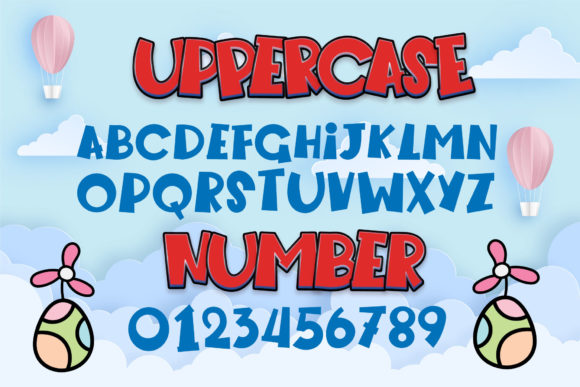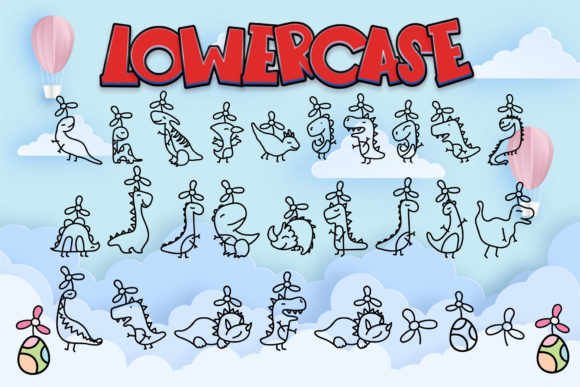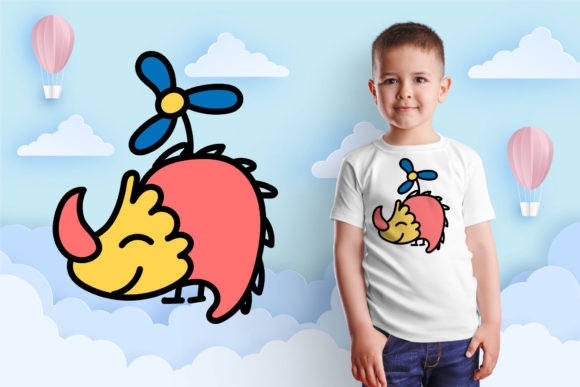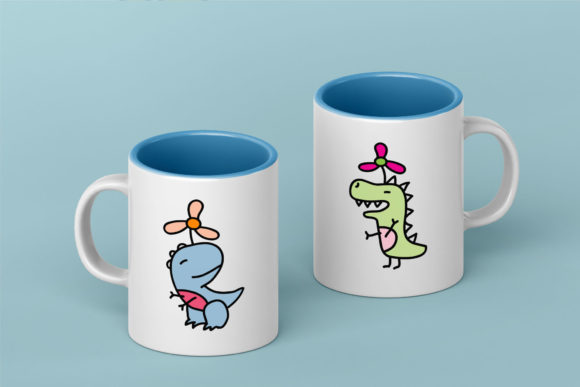
Meet Your New BFF: Dinofly Font
Have you ever been brainstorming a new project, flipping through fonts, and suddenly, a spark of creativity hits you? It’s like your design heart skipped a beat, and you can’t wait to bring your idea to life. This is exactly what happened when designers discovered the adorable Dinofly Font, a playful duo font that combines display and dingbats.
Dinofly Font is more than just a cute addition to your design arsenal – it’s a perfect blend of friendly and informal characters that will make your designs stand out. With its cute little dinosaurs for accents, this font is a must-have for designers looking to add a whimsical touch to their projects. Whether you’re working on a children’s book, a fun website, or a social media campaign, Dinofly Font is sure to bring a smile to your audience’s faces.
Dinofly Font Key Features
- Resolution: DINOFly Font is designed to be scalable and legible at high resolutions, making it suitable for use on screens and in print.
- Unique Characteristics: DINOFly Font features a unique blend of modern and futuristic elements, with a distinctive ‘fly’ design element that adds a touch of whimsy and personality.
- Character Set: DINOFly Font includes a comprehensive character set, including Latin, Cyrillic, and Greek alphabets, as well as a range of punctuation and symbol characters.
Dinofly Font Review
As a designer, I’ve had the chance to work with Dinofly Font, and I’m here to give you my honest review. Overall, I’d say it’s a solid choice for those looking for a fun, playful font.
- Unique design: Dinofly Font’s quirky design makes it perfect for branding and marketing materials where you want to stand out.
- Wide range of styles: From light to bold, Dinofly Font offers a variety of weights to suit your design needs.
- Legibility: Despite its playful nature, Dinofly Font is still easy to read, making it a great choice for body text.
- May not be suitable for formal projects: Dinofly Font’s casual vibe might not be the best fit for more serious or professional projects.
- Limited language support: I noticed that Dinofly Font doesn’t support some languages, which might be a limitation for international designs.
Overall, Dinofly Font is a great choice for designers who want to add some personality to their projects. While it may not be the best fit for every project, it’s definitely worth considering for those looking for a fun, playful font.
The Dinofly Font is ideal for:
- Creating futuristic and high-tech designs.
- Designing logos and branding materials.
- Adding a unique touch to presentations and documents.
For optimal results, use the Dinofly Font in conjunction with other bold and futuristic fonts, and experiment with different color combinations and effects.